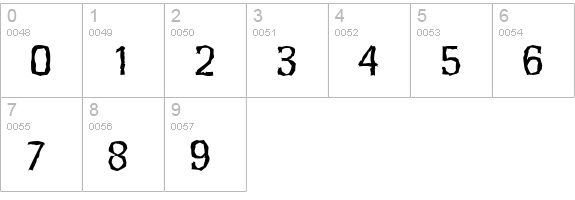
RochesterRandom-Regular is the standard, neutral variant in the RochesterRandom typeface family \xE2\x80\x94 well suited to general body text, paragraphs, and standard typographic work.
RochesterRandom-Regular font is a charming and whimsical typeface that exudes a playful and artistic vibe. With its irregular strokes and unique letterforms, this font adds a touch of creativity to any design project. Whether you're working on a poster, greeting card, or logo, RochesterRandom-Regular will bring a sense of fun and originality to your work. The best part? This font is available for free download at FontsMarket.com, making it easily accessible to all designers and creatives looking to add a bit of spontaneity to their projects. Embrace the free-spirited nature of RochesterRandom-Regular and let your imagination run wild with this delightful typeface.